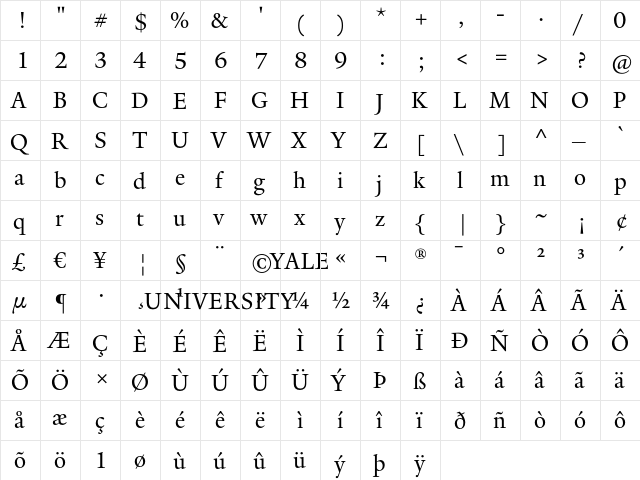
YaleAdmin Roman
Design Context for YaleAdmin Typeface
YaleAdmin takes a measured approach to typography — its balanced proportions and neutral character make it a reliable workhorse for both digital and print work.
Pro Tip: Pair YaleAdmin with a font of contrasting weight or personality to build a more expressive typographic hierarchy.